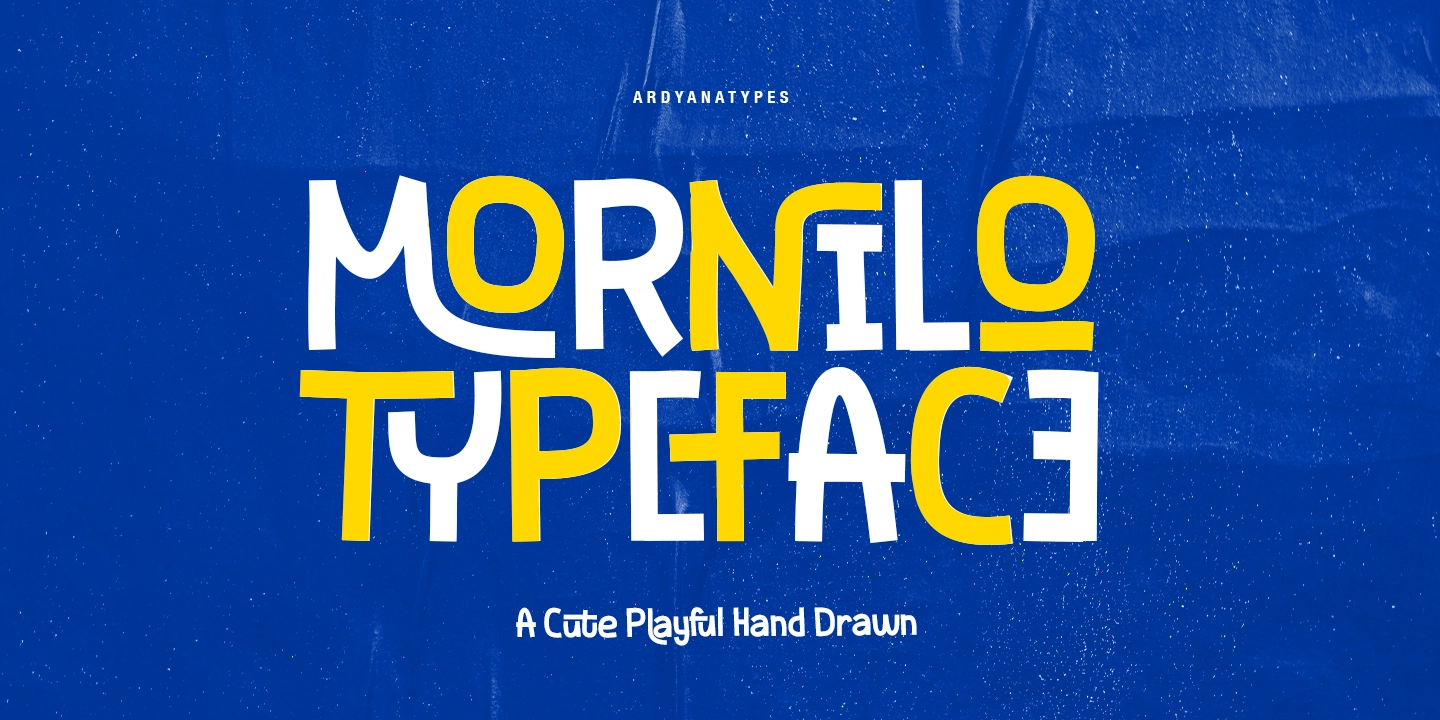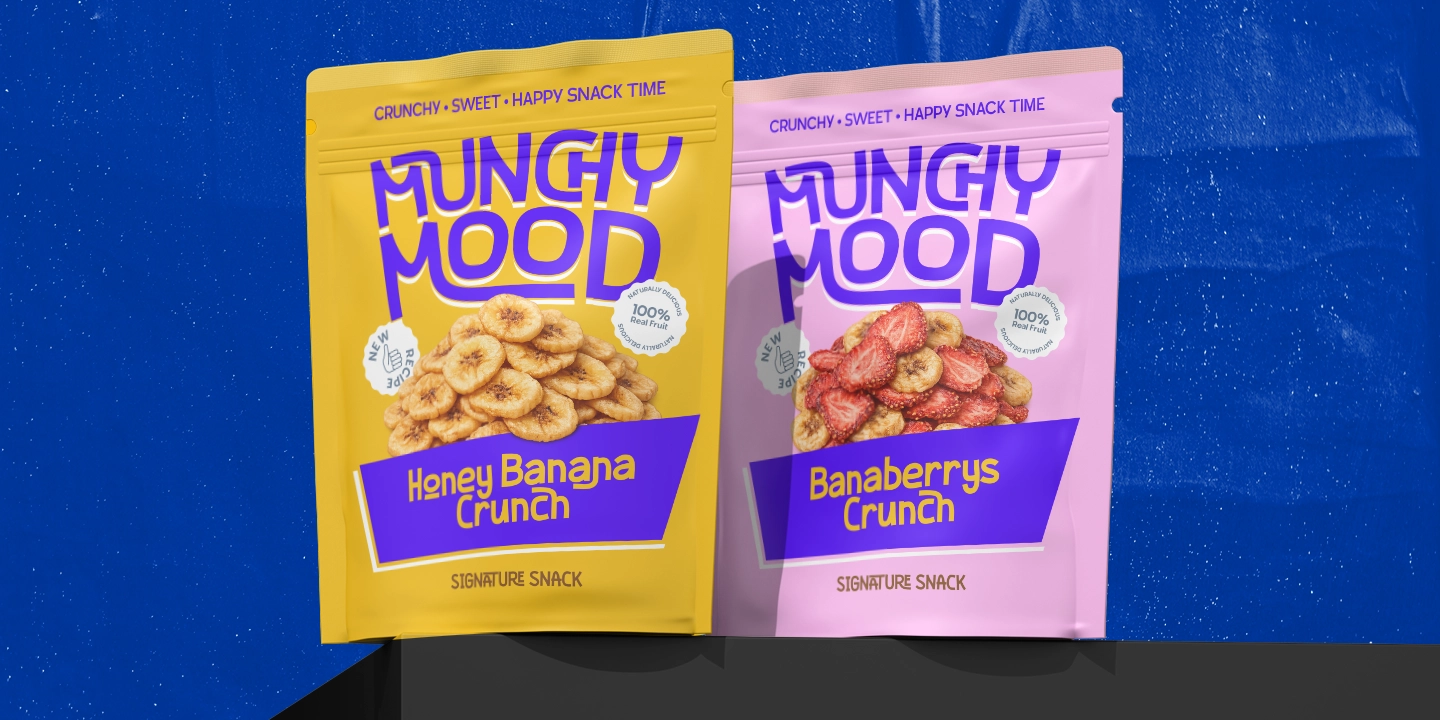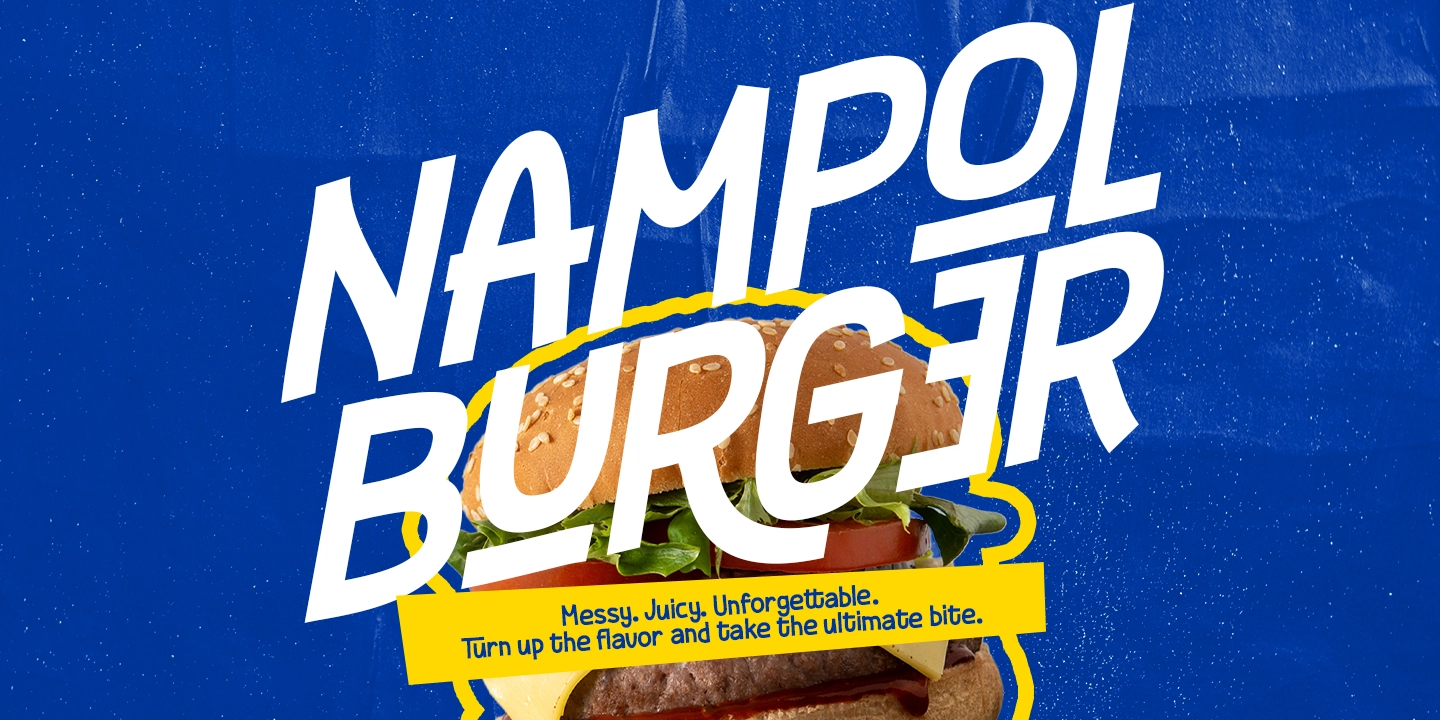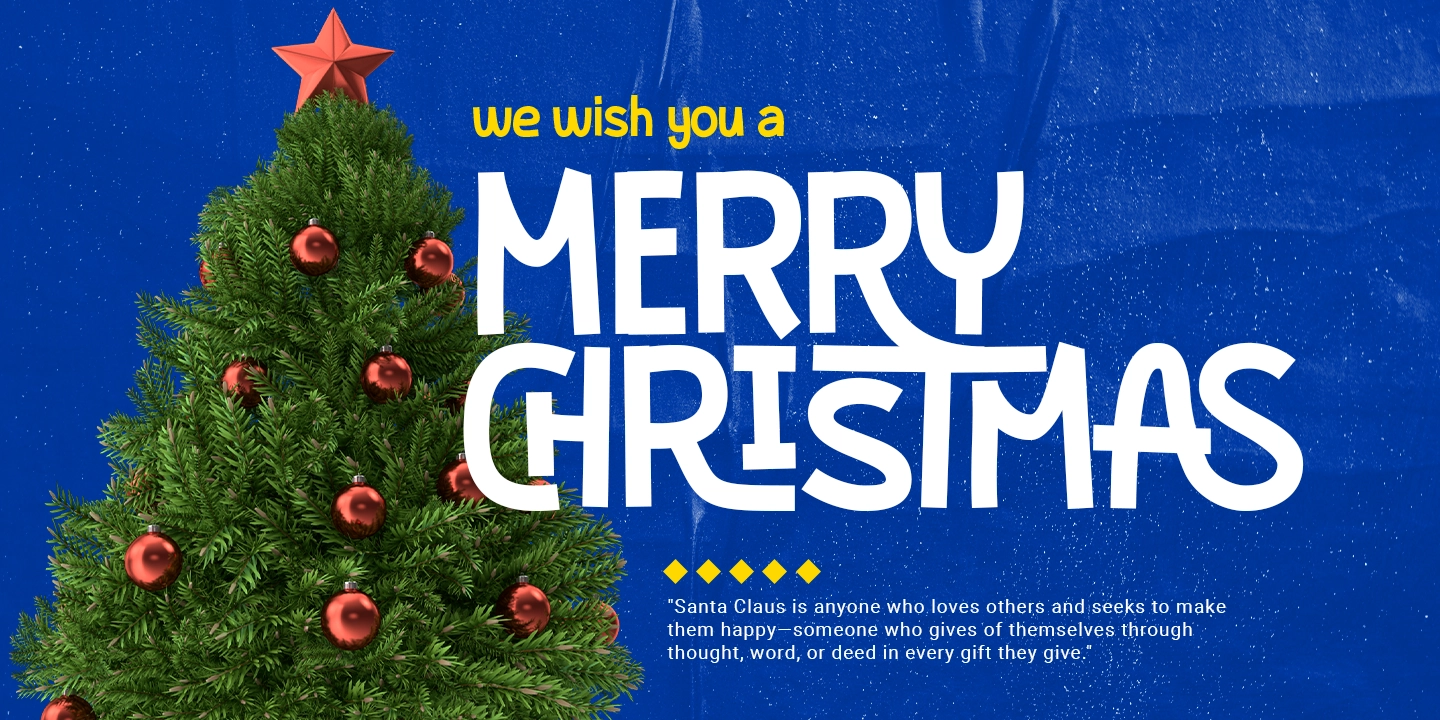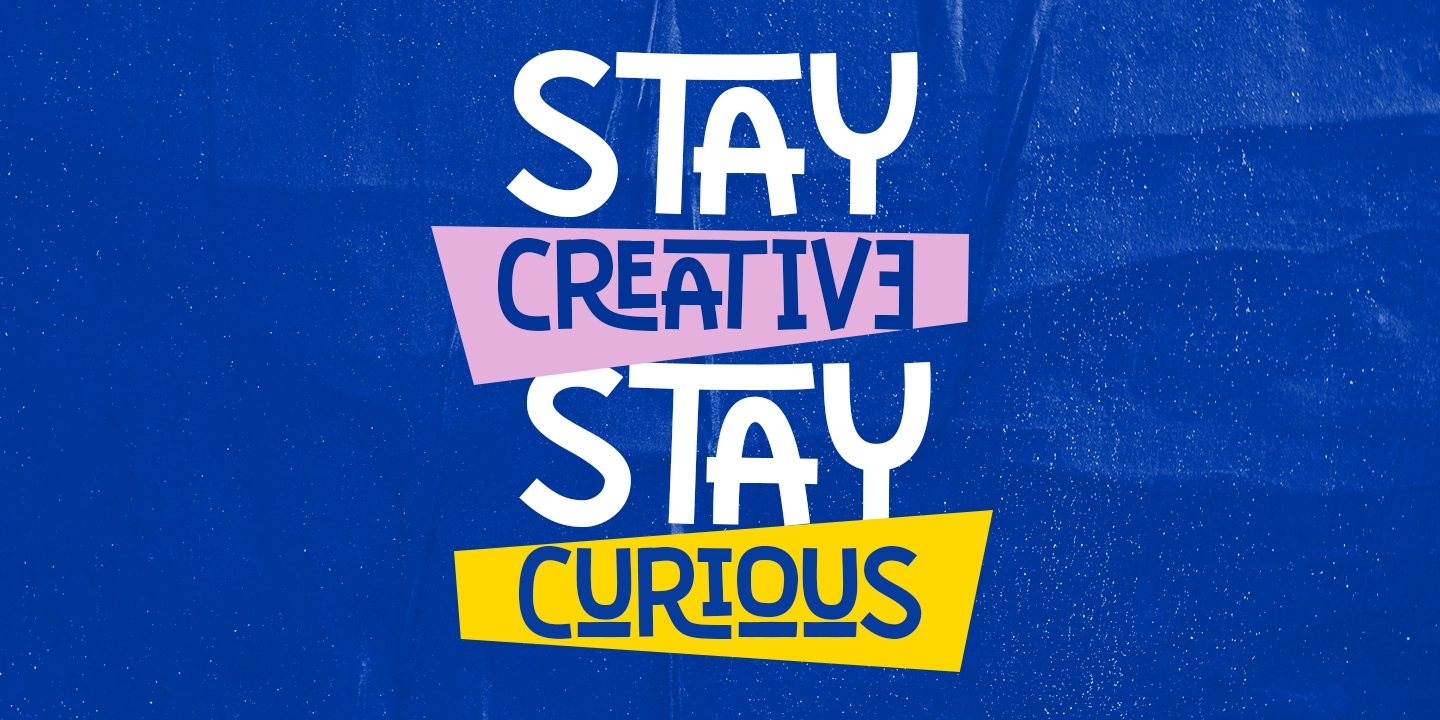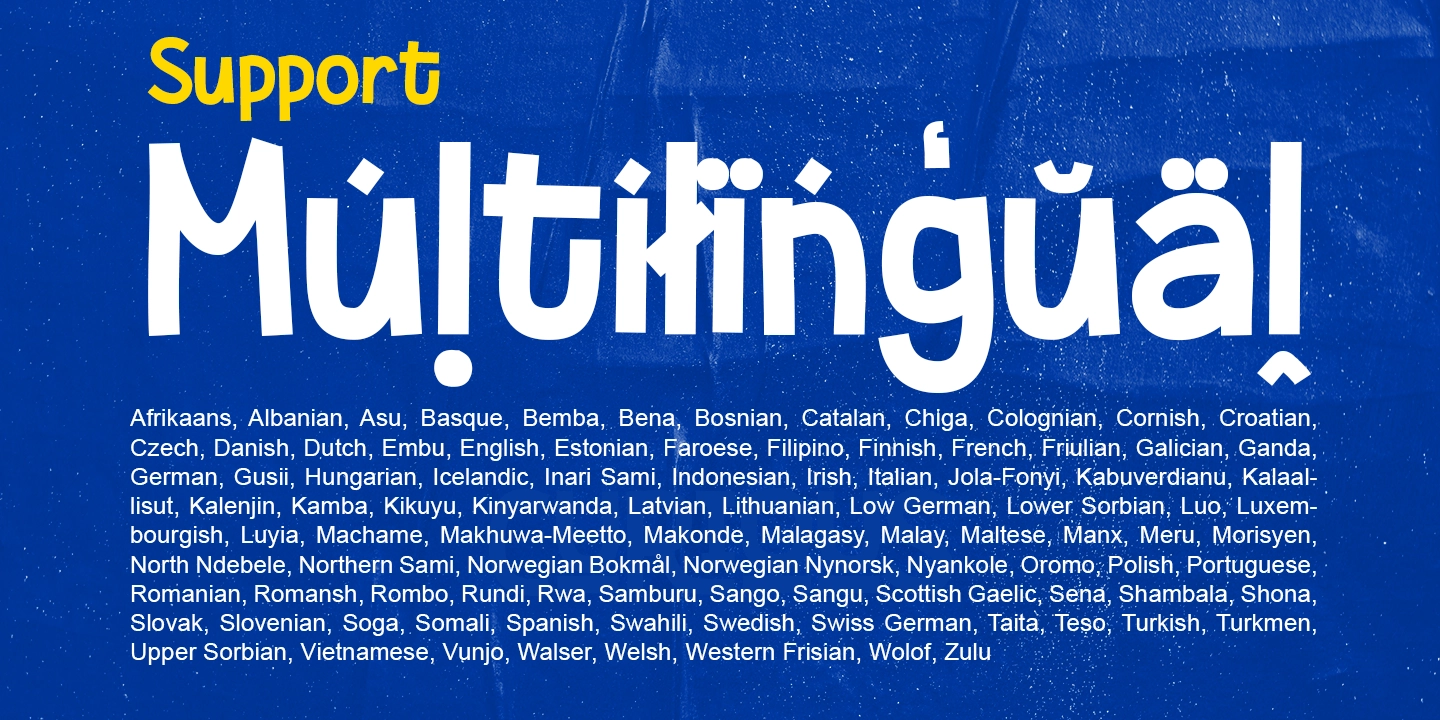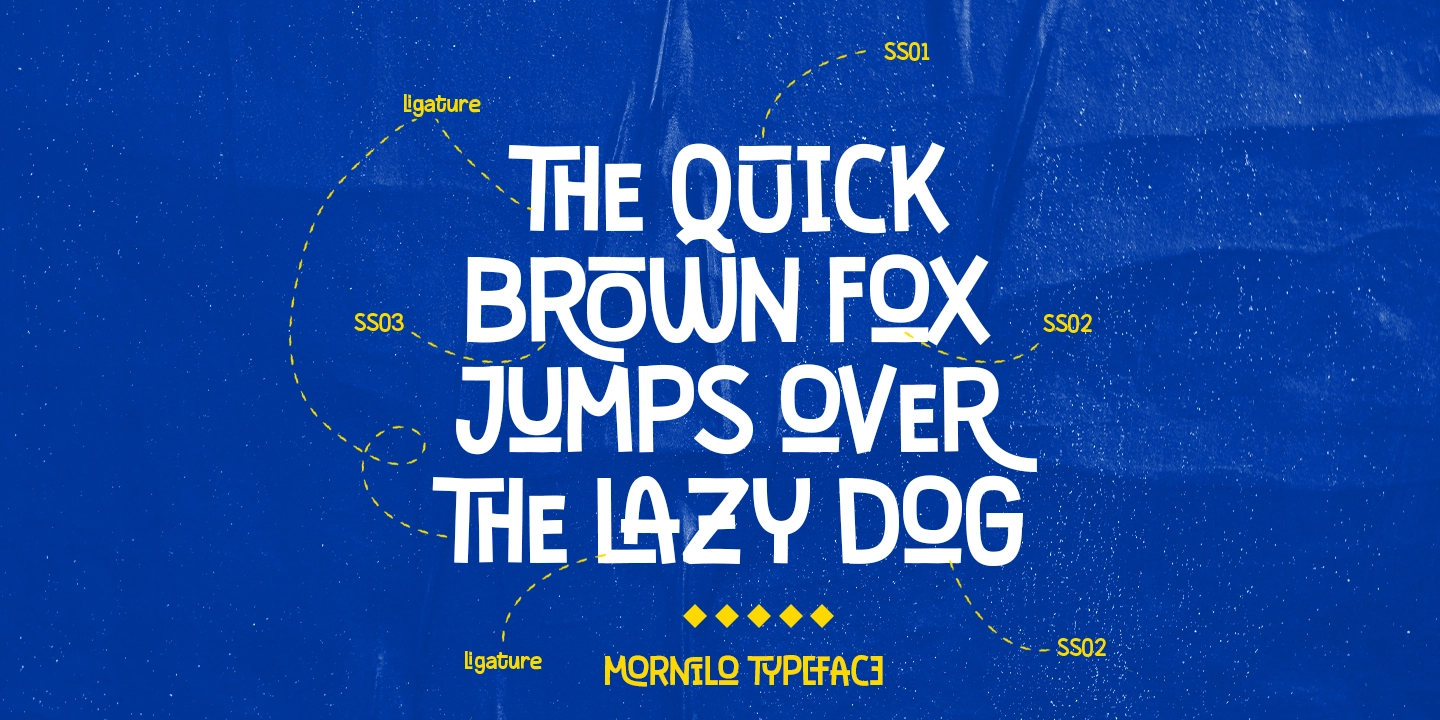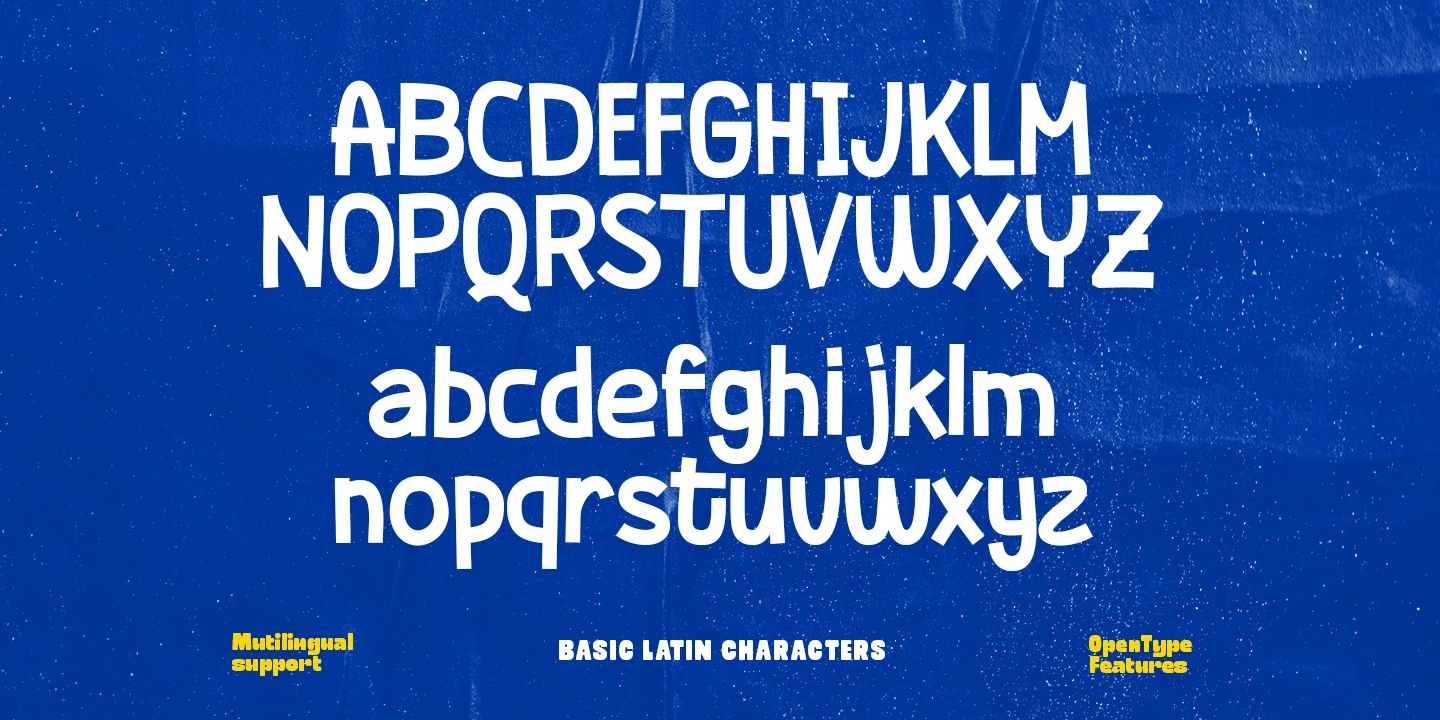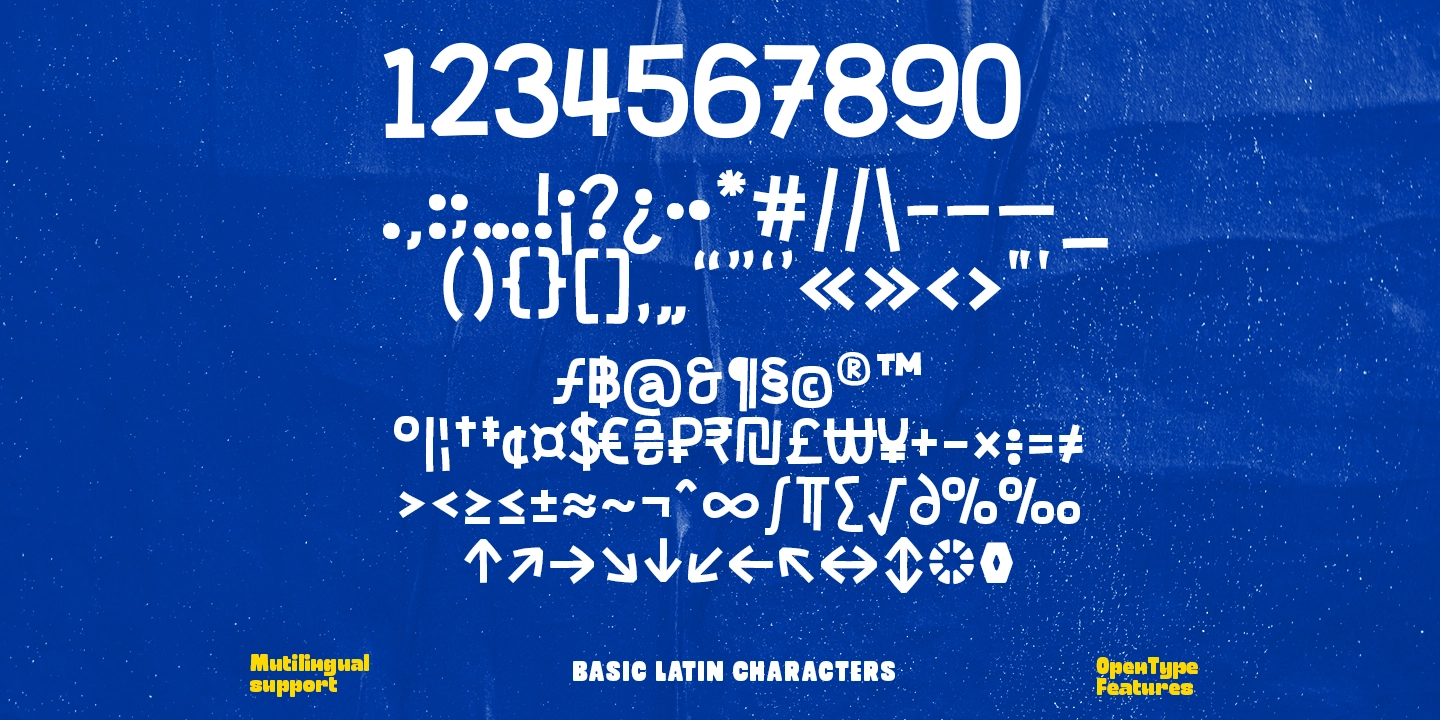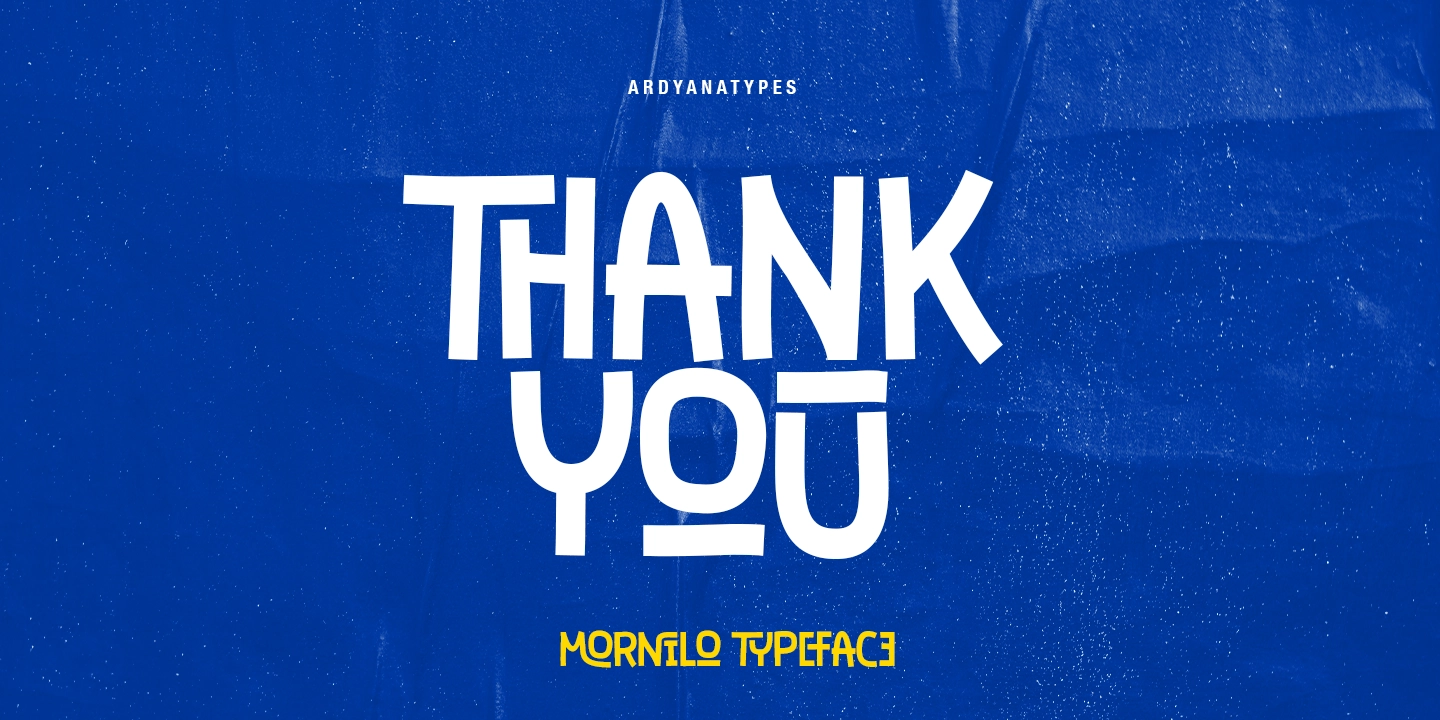
Mornilo
Mornilo Typeface is a cute and playful hand-drawn display font designed to bring joy, personality, and creativity into your designs. Inspired by spontaneous handwriting and cheerful doodles, this typeface captures the natural rhythm of hand lettering while maintaining excellent readability.
Each letter is crafted with unique curves and slightly irregular shapes, giving the font a lively and friendly character. The playful structure makes it perfect for designs that need warmth, fun, and a touch of creativity.
What makes Mornilo truly special is its rich set of OpenType features. The font comes with a large collection of ligatures and stylistic alternates for both uppercase and lowercase letters, allowing you to create dynamic and expressive typography effortlessly. By simply activating OpenType features, your text will automatically transform into more natural and interesting letter combinations.
This flexibility makes Mornilo incredibly versatile for a wide range of creative projects—from playful branding to cheerful packaging and engaging social media graphics.
Whether you’re designing for children’s products, fun brands, creative posters, or digital content, Mornilo Typeface will add a lively personality that stands out.